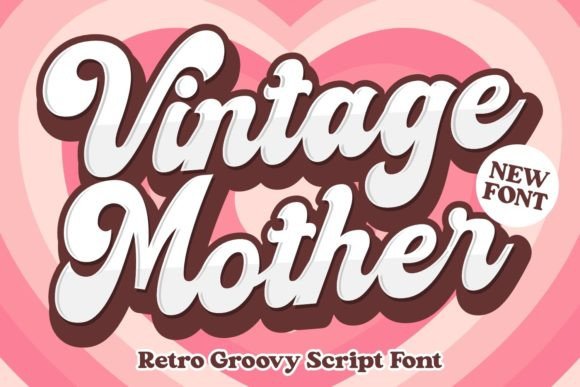
Introducing Vintage Mother Font, the ultimate choice for modern app designs! Crafted by the talented Keithzo from 7NTypes, this captivating script font will transport you back in time while adding an irresistible retro vibe to your projects. Get ready to take your designs to new heights with Vintage Mother!
With its playfully nostalgic style, Vintage Mother Font guarantees to captivate your audience from the moment they lay eyes on it. Whether you're designing a logo, a website, or even a social media post, this font will instantly grab attention and leave a lasting impression.
Unleash your creativity and let Vintage Mother Font unlock a world of possibilities for you. Each character has been meticulously designed to perfection, ensuring that every letter exudes elegance and charm. From its elegant curves to its intricate details, this font truly stands out from the crowd.
But Vintage Mother Font isn't just about aesthetics; it's also about functionality. This font is incredibly versatile, making it suitable for a wide range of projects. Whether you're designing for a fashion brand, a vintage-themed event, or a trendy app, Vintage Mother Font will effortlessly elevate your design to the next level.
But don't just take our word for it, see it for yourself! Take a look at preview seven to get a glimpse of the stunning characters this font has to offer. Please note that the outline or extrude effect shown in the preview images is for display purposes only. The true beauty of Vintage Mother Font lies in its pure form.
When you choose Vintage Mother Font, you're not just getting a font; you're getting a piece of art that will make your designs shine. Its uniqueness and attention to detail will help you create designs that are not only visually appealing but also evoke emotions in your audience.
So why wait? Experience the magic of Vintage Mother Font today and let your creativity soar. Make a bold statement with your designs, stand out from the crowd, and leave a lasting impression. Vintage Mother Font is the perfect companion for those who seek to create modern and captivating designs that resonate with their audience.